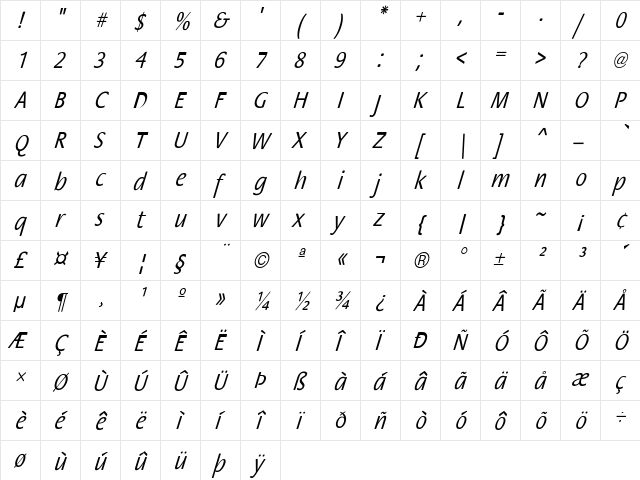
FloraCndObl-Normal Regular
Design Context for FloraCndObl-Normal Typeface
FloraCndObl-Normal takes a measured approach to typography — its balanced proportions and neutral character make it a reliable workhorse for both digital and print work.